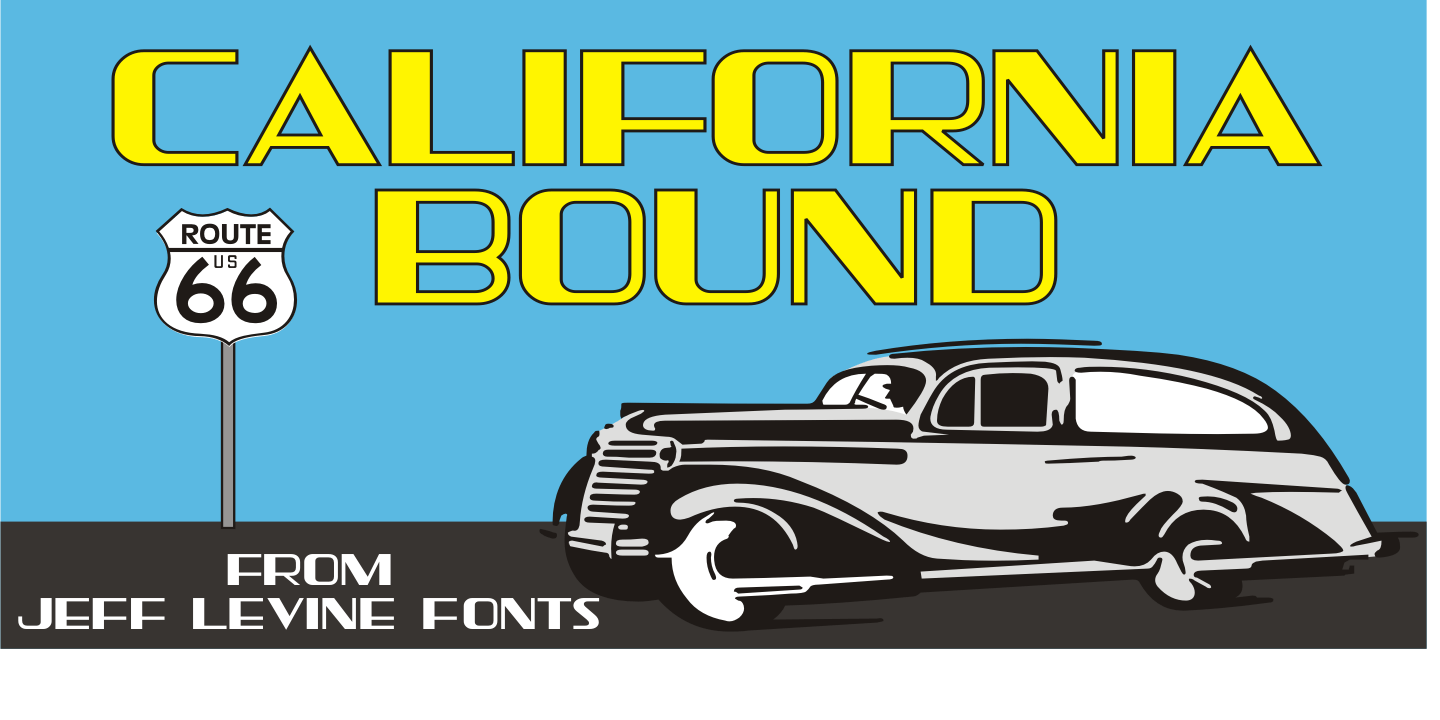
California Bound
California Bound JNL is based on the hand lettering found on the side of the old California Zephyr passenger trains; the route now being a part of Amtrak.
This somewhat unusual Art Deco design is more utilitarian than decorative, yet it still captures the 'Streamline Era” perfectly.